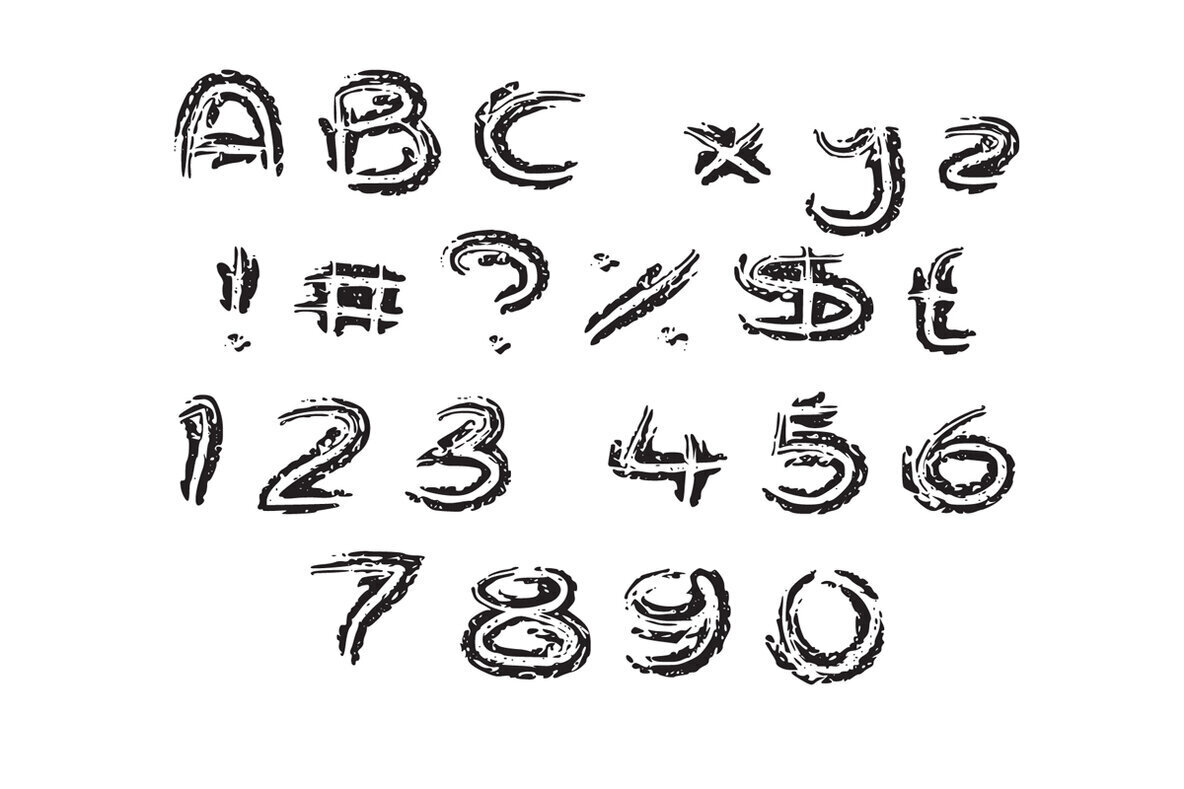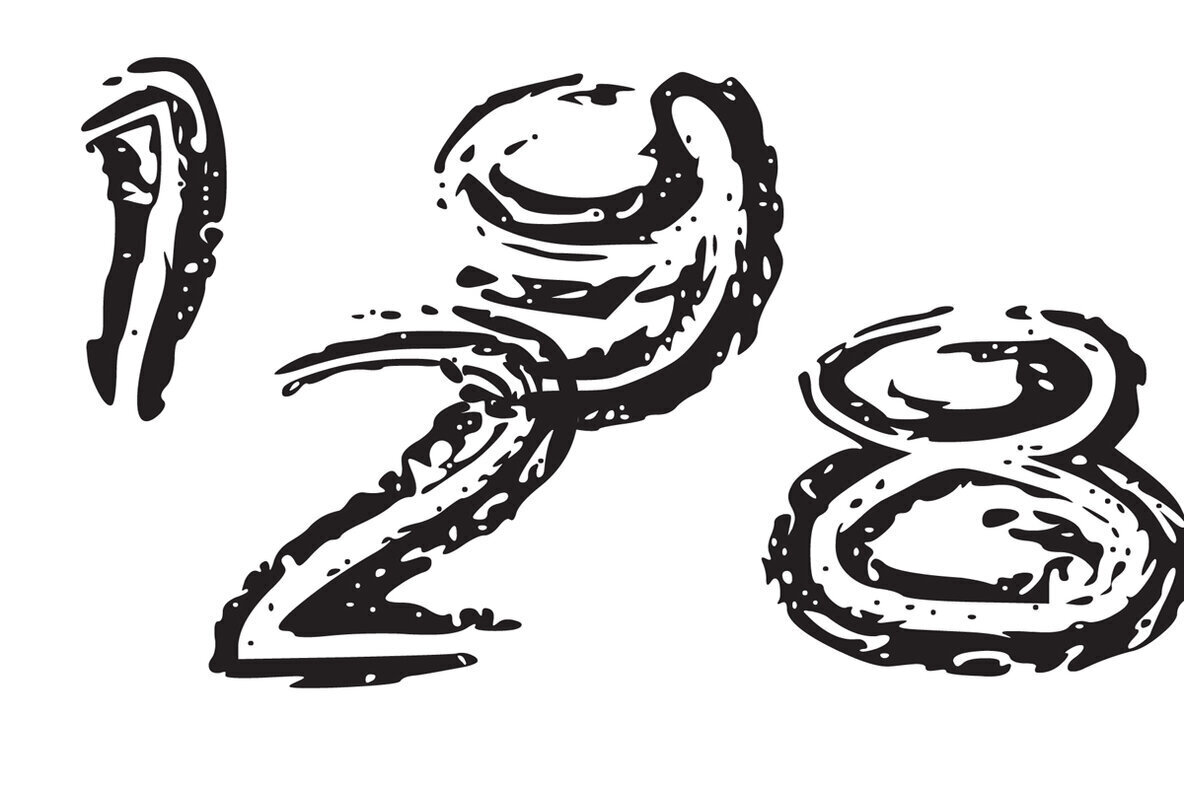
Clean Me 1
Clean Me is a cute and uniquely designed brushed display font. This original look will appeal to a wide range of crafty ideas, from letterheads and titles, to stationery.